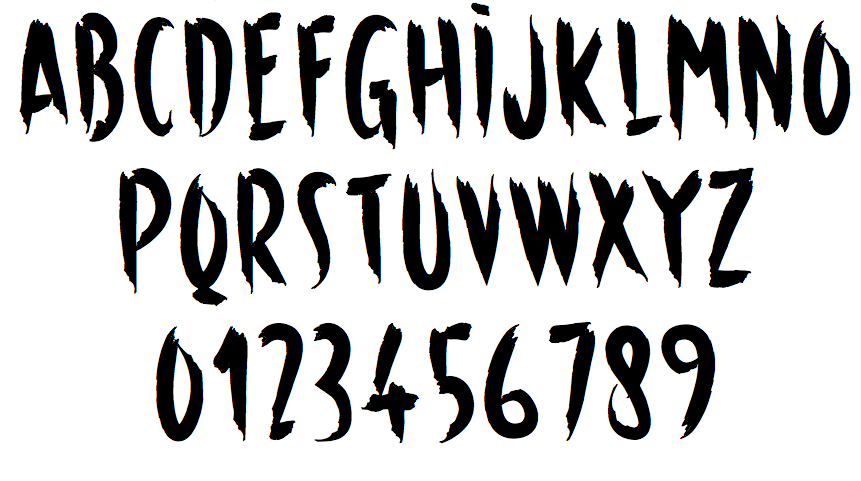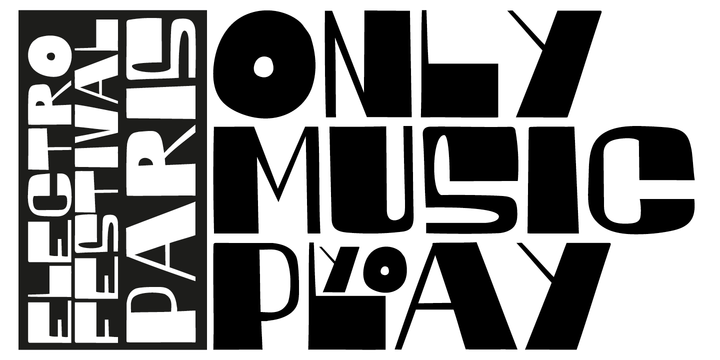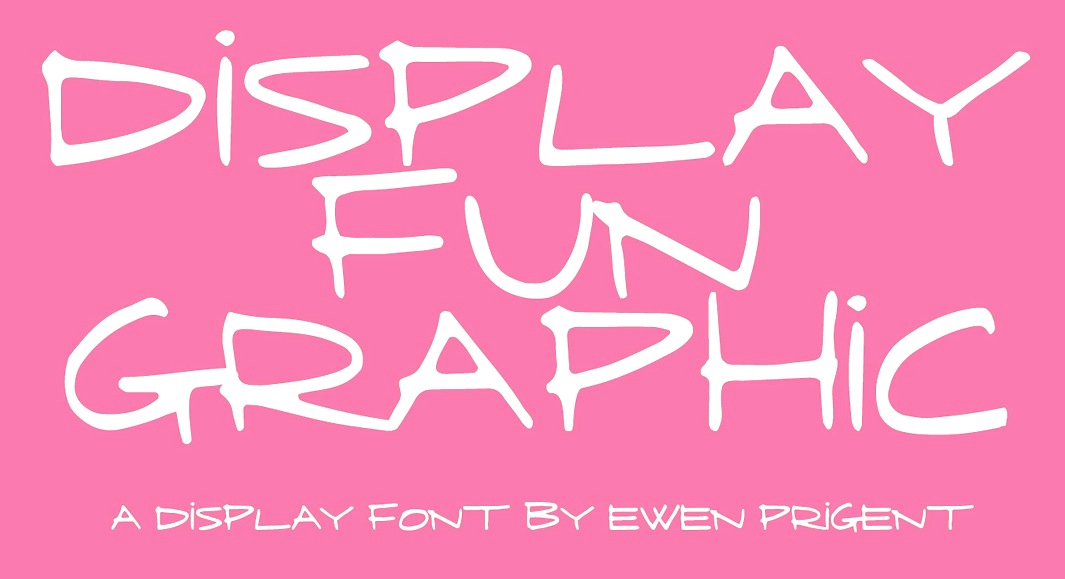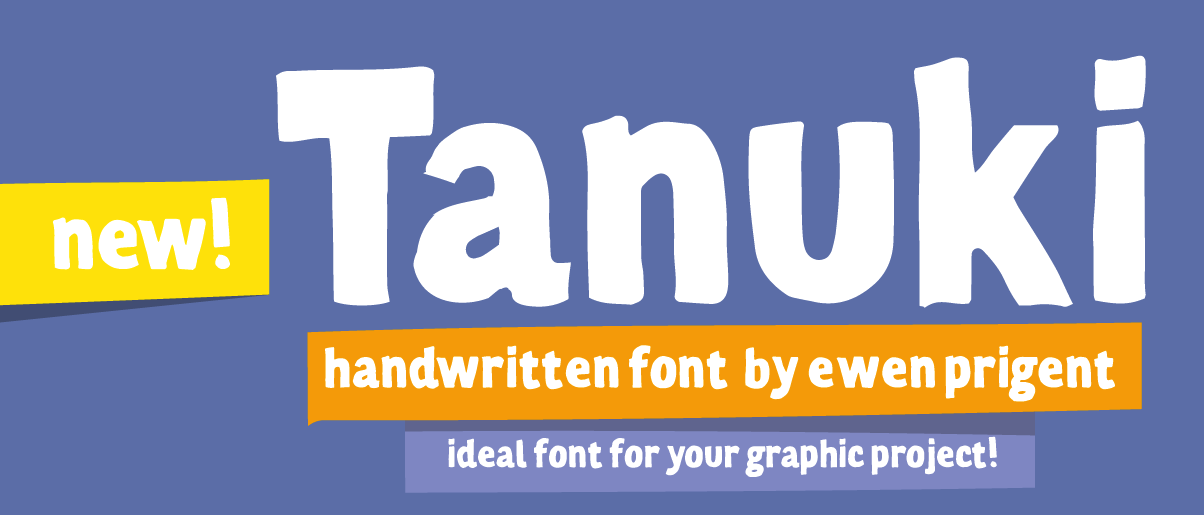
La Boîte Graphique [Ewen Prigent]
Ewen Prigent was born in 1980 in Saint-Renan and lives in Brest, France. He graduated from the Université d'Arts Plastique de Rennes 2. La Boîte Graphique was founded by him in 2008. He specializes in hand-drawn poster typefaces.
Creator of the counterless octagonal fat typeface Bunker (2008), and the organic typeface Ibiscus (2008). In 2009, he created the informal all-caps families Fanfarone, Gram, Quinto, Rondi and Trouble, and the monoline Ficus (2009). In 2010, he added the gothic Rosa.
In 2011, he published the informal paper cut family Brams, the hand-printed poster font Nivel, the comic book family Gaspa, the brush typefaces Zoé and Street, and the hand-printed typeface Behance.
In 2012, he created Adonide, the beautiful hand-printed outline typeface Prune, the poster typeface Myosotis, the modular typeface Tulipe, and the thorny caps typeface Cactus.
Typefaces from 2013 include Kermel (hand-printed caps: followed in 2014 by Kermel Serif), Borden (rounded hand-printed caps), and the wonderful poster typeface Festo.
Typefaces from 2014: Regato (gorgeous poster typeface), Kikster (poster typeface), Water (fat finger font), Kermel Serif, Waves, Horror (brush face), Horror Ornaments.
Typefaces from 2015: Fringe, Bear (handcrafted poster font).
Typefaces from 2016: Poquito (vernacular signage style), Mediafont (a squarish constructivist titling font to add Russian testosterone to a document).
Typefaces from 2018: Anel (a great handcrafted titling typeface, ideal for annotating photographs).
Typefaces from 2019: Brosha (handcrafted), Tanuki (handcrafted), Shaking (handcrafted).
Typefaces from 2020: Makel (a monoline script), Darek (a fat finger font).